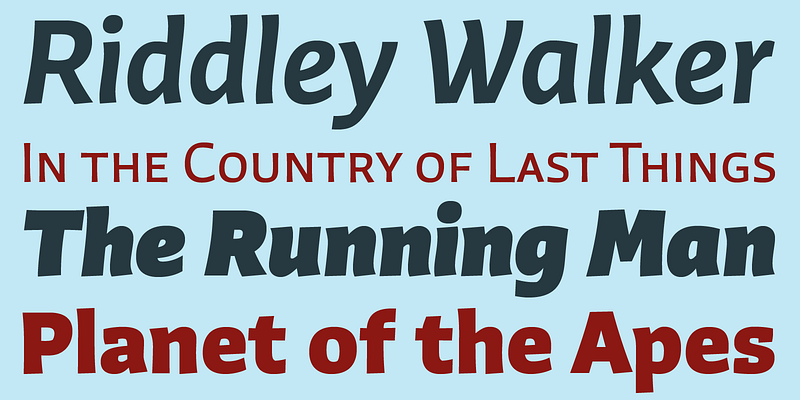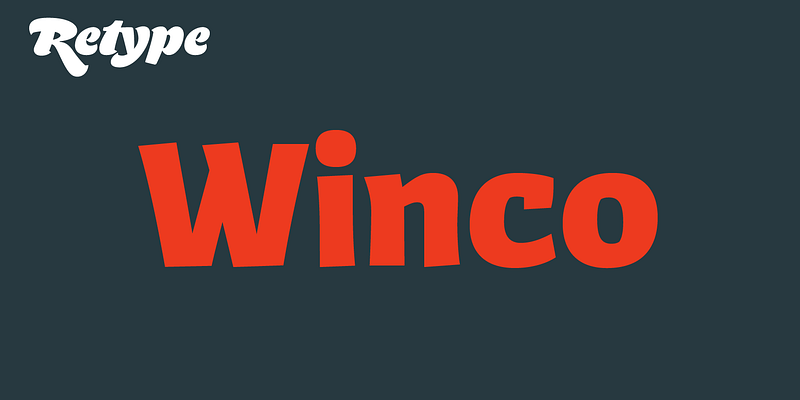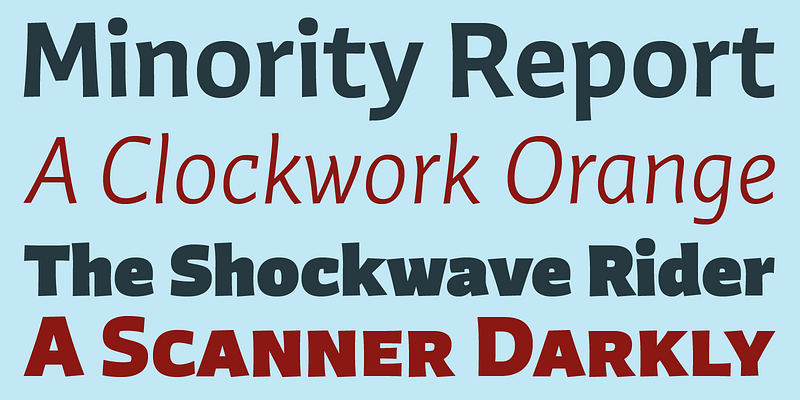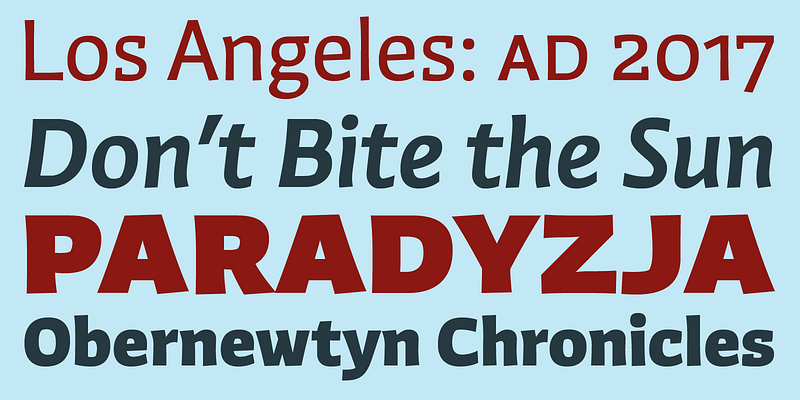
Winco samples the hand-lettered book covers by designers like Helmut Salden and Boudewijn Ietswaart, and draws further inspiration from German and Czech printing types that were influential in the early twentieth century. The marriage of those two sources produced letterforms that appear to be both painted by hand and cut in metal. Thanks to its lightly contrasted strokes with flared, angled endings, and economical shapes with well-defined corners and curves, the versatile Winco adds character to body copy and display type in a multitude of applications. Retype, 2012.